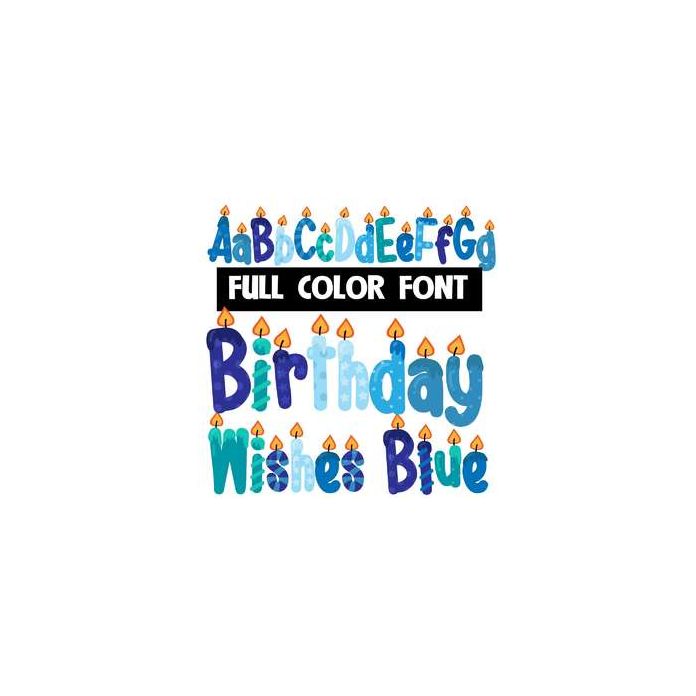
This full-color font features blue-based candles. You can also buy this alphabet in mulit-color or pink. This font works best for titles, displays, posters and more. Please note color fonts will show as black in non compatible programs. This font type is compatible with Silhouette Studio.